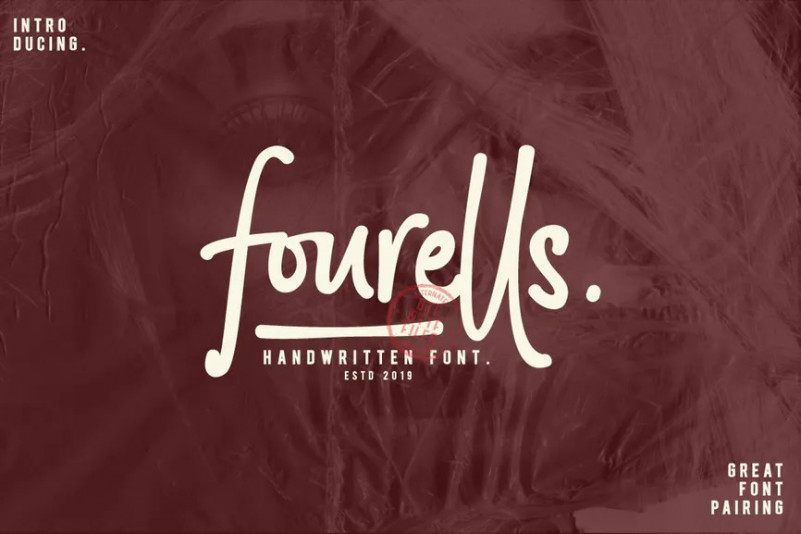
Fourells Font
Fourells Script is modern calligraphy script font, every single letters have been carefully crafted to make your text looks beautiful. With modern script style this font will perfect for many different project ex: quotes, blog header, poster, wedding, branding, logo, fashion, apparel, letter, invitation, stationery, etc.